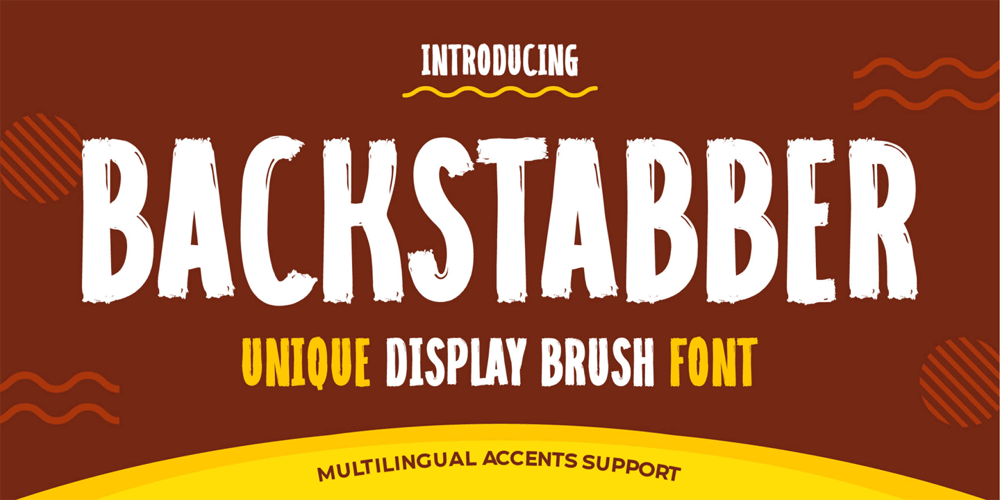
Backstabber
Backstabber font
Backstabber Font Family was designed by Abdul Malik Wisnu, Anang Fibriyanto and published by Gassstype. Backstabber contains 1 styles and family package options. Hello Everyone, introduce our new product font Backstabber is a Unique Display Brush Font.font is a Natural Style and classy style with a clear style and dramatic movement.This font Backstabber is great for your next creative project such as logos, printed quotes, invitations, cards, product packaging, headers, Logotype, Letterhead, Poster, Design this font is great for your creative projects such as watermark on photography, and perfect for logos & branding, invitation,advertisements,product designs, stationery, wedding designs,label ,product packaging, special events or anything that need handwritting taste.That is Backstabber has charming, authentic and relaxed characteristic more natural look to your text.